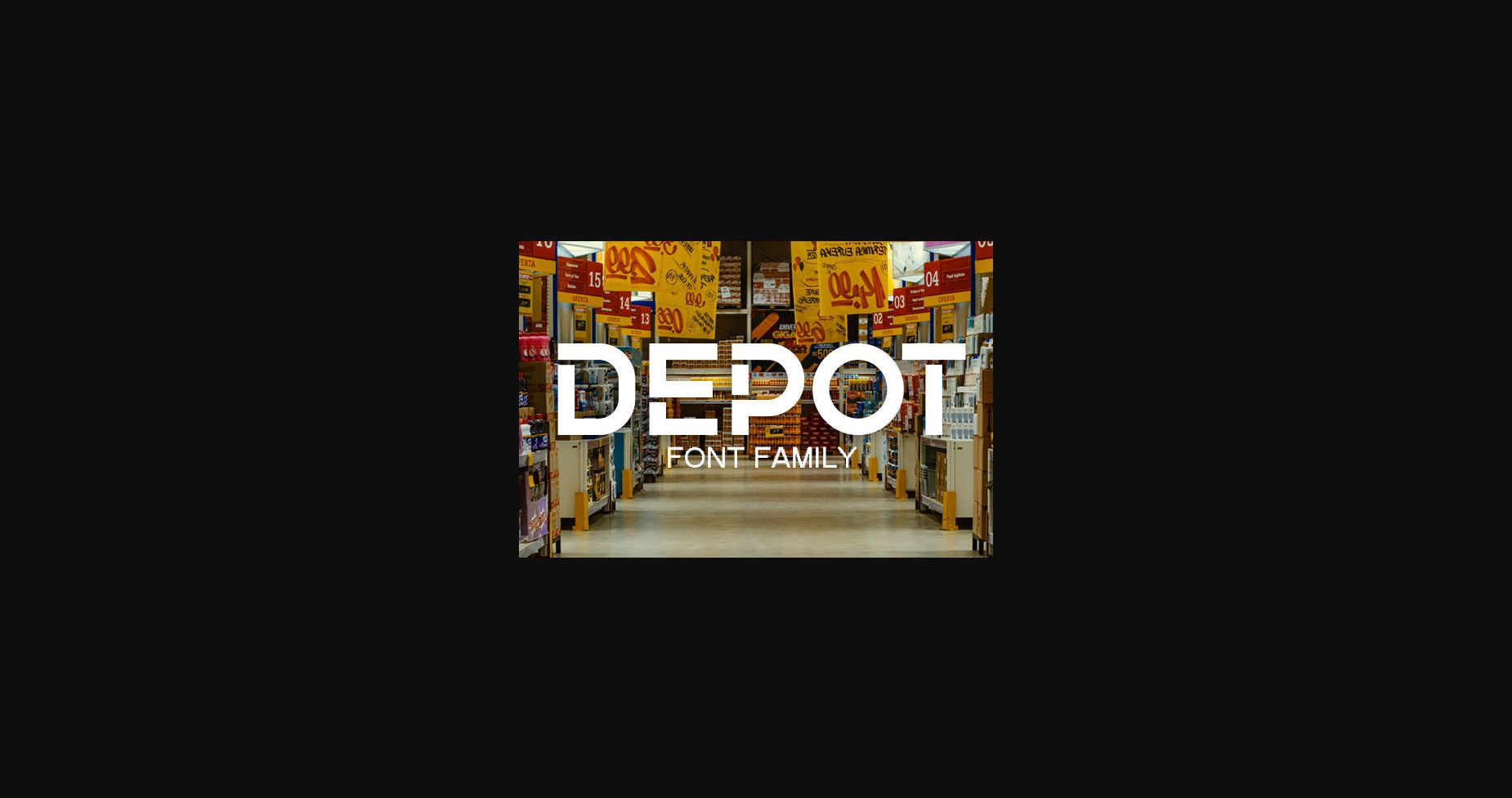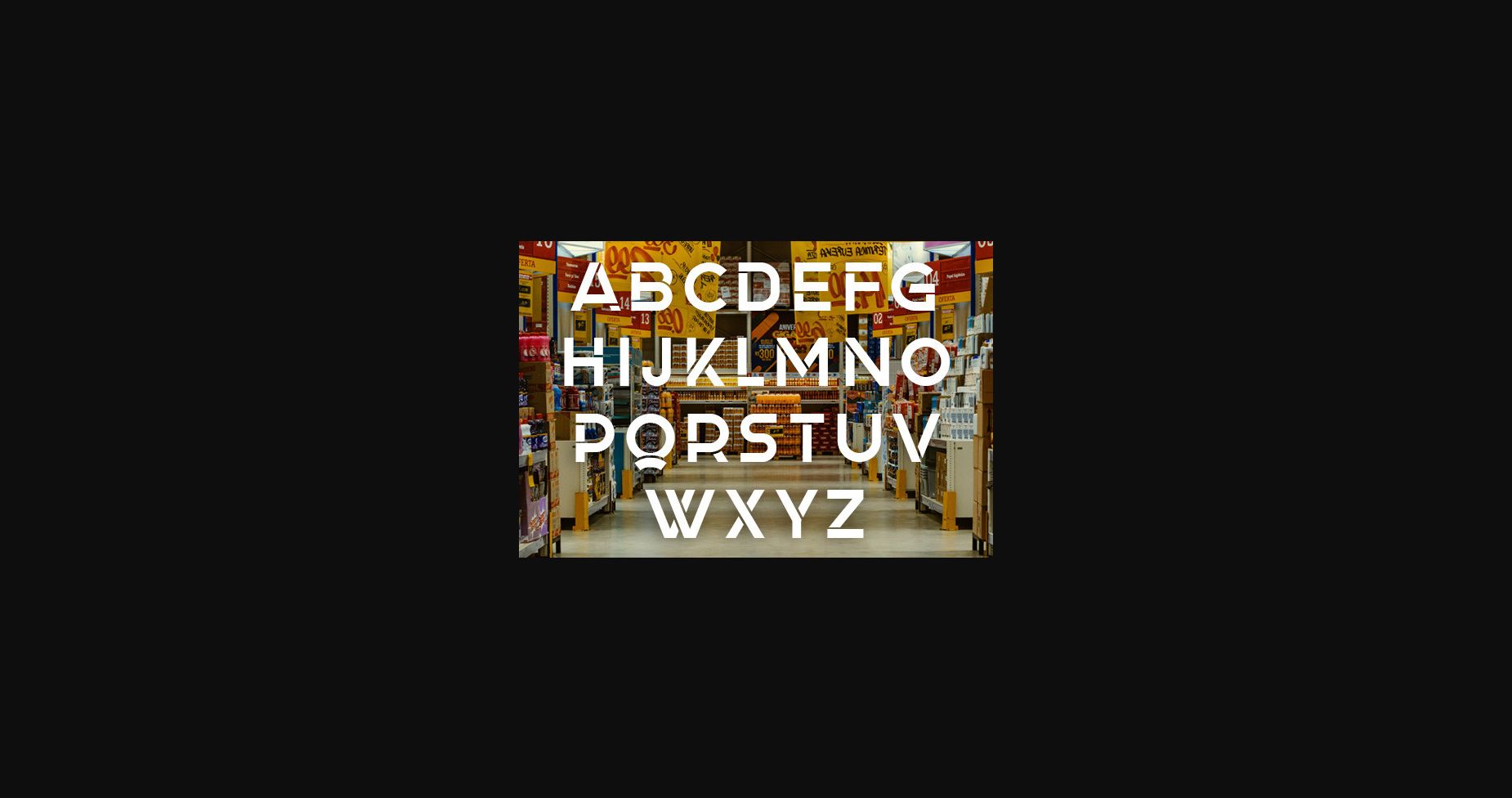
HomeSans Serif FontsDepot Font Sans Serif Fonts Depot Font FacebookXPinterestWhatsApp 1 of 4 ... Depot Font Poster 2... Depot Font Poster 3... Depot Font Poster 4... About Depot Font Depot is a stylish and elegant Sans Serif/Display font. It looks amazing on banners, posters, quotes, greeting cards, logos, business cards, and any other design in both Regular and Filled styles. DOWNLOAD NOW People also explored MultiType Lines Wide Bold 2 Font Overlay Font Hello Lovea Font Beauty Magnolia Flower Monogram Font Hellvina Font Levrona Font Pinkerston Font Ringtrack Font Gradiattes Script Font 406 0 TagsDepotDepot Font Previous articleUnderrated FontNext articleRevealed Font LEAVE A REPLY Cancel reply Comment: Please enter your comment! Name:* Please enter your name here Email:* You have entered an incorrect email address! Please enter your email address here Website: Save my name, email, and website in this browser for the next time I comment. Personal Use Free Bitcrusher Condensed Bold Personal Use Free Read more about this font BD Spinner Personal Use Free Read more about this font Rolling Door Personal Use Free Read more about this font Eits Personal Use Free Read more about this font BLOG Free Fonts Risk: Why Free Fonts Can Be Dangerous for Designers Free Fonts Risk: Why Free Fonts Can Be Dangerous for Designers Using free fonts is a common practice in web and graphic design. However, the... Free vs Paid Fonts: Why Investing in Premium Fonts Is Worth It Transform Your Website: Elevate Your Typography with 7 Best Web Font Generators How to Cut Any Font on Cricut: Convert a Font to SVG (Free)